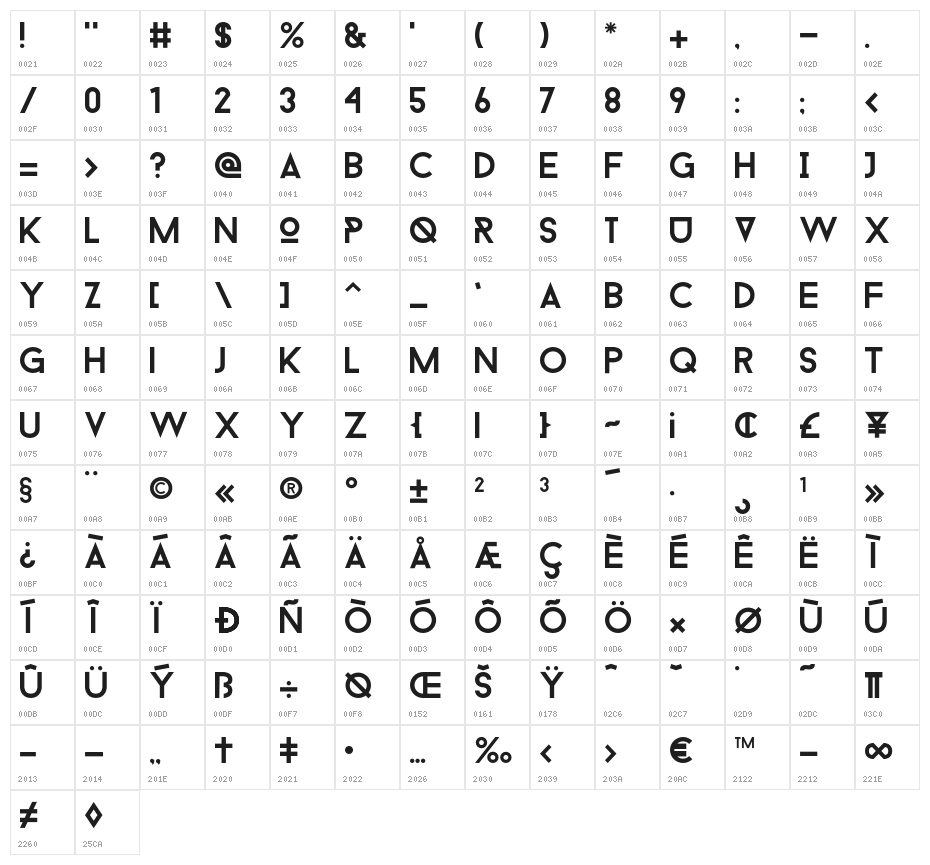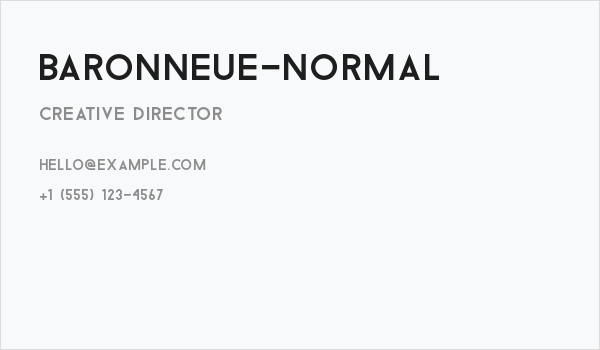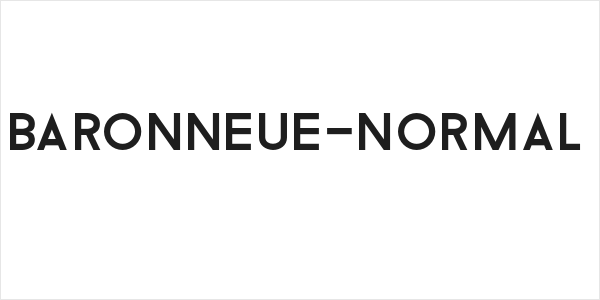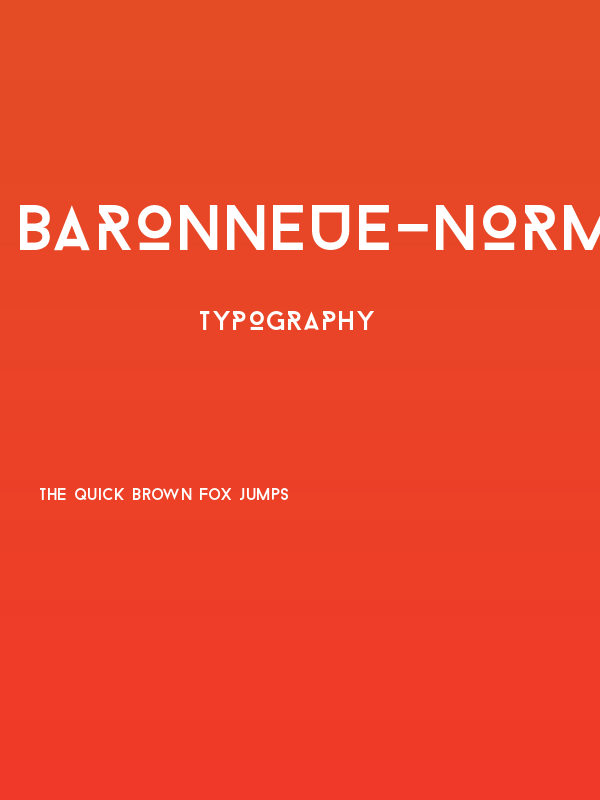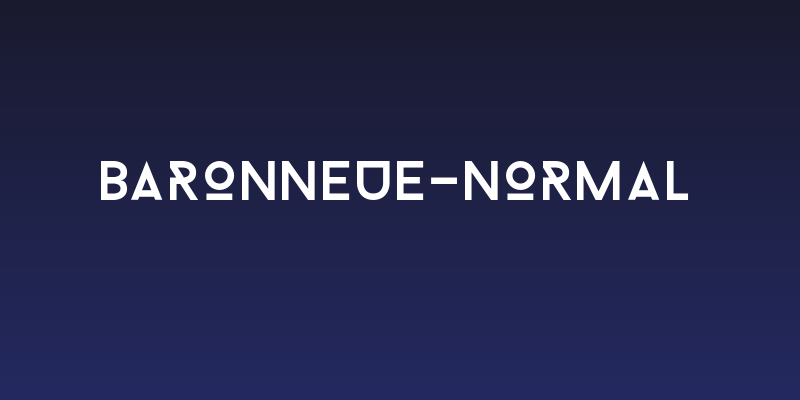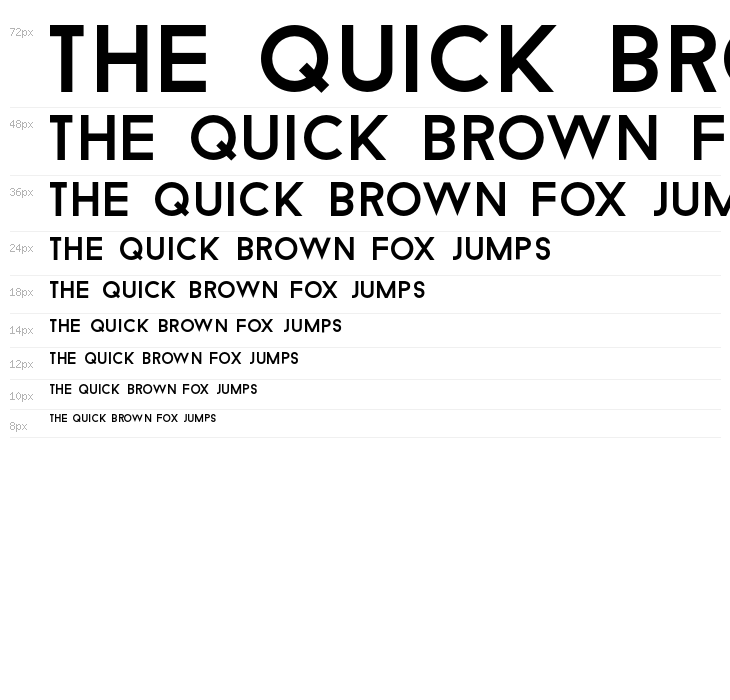
BaronNeue-Normal Font
BaronNeue-Normal Description
This typeface features a modern and clean design with geometric influences. The characters are bold and uniform, offering a strong visual presence. The uppercase letters are particularly striking, with a consistent stroke width that conveys a sense of stability and confidence. The lowercase letters maintain the same geometric style, ensuring readability and coherence across different text sizes. The numerals are clear and straightforward, making them suitable for various applications. Special characters are well-integrated, maintaining the overall aesthetic of the typeface. This font is versatile, suitable for both digital and print media, and can be used effectively in branding, advertising, and editorial design.
| Proposed Projects | Ideal for branding, advertising, editorial design, and digital media projects. |